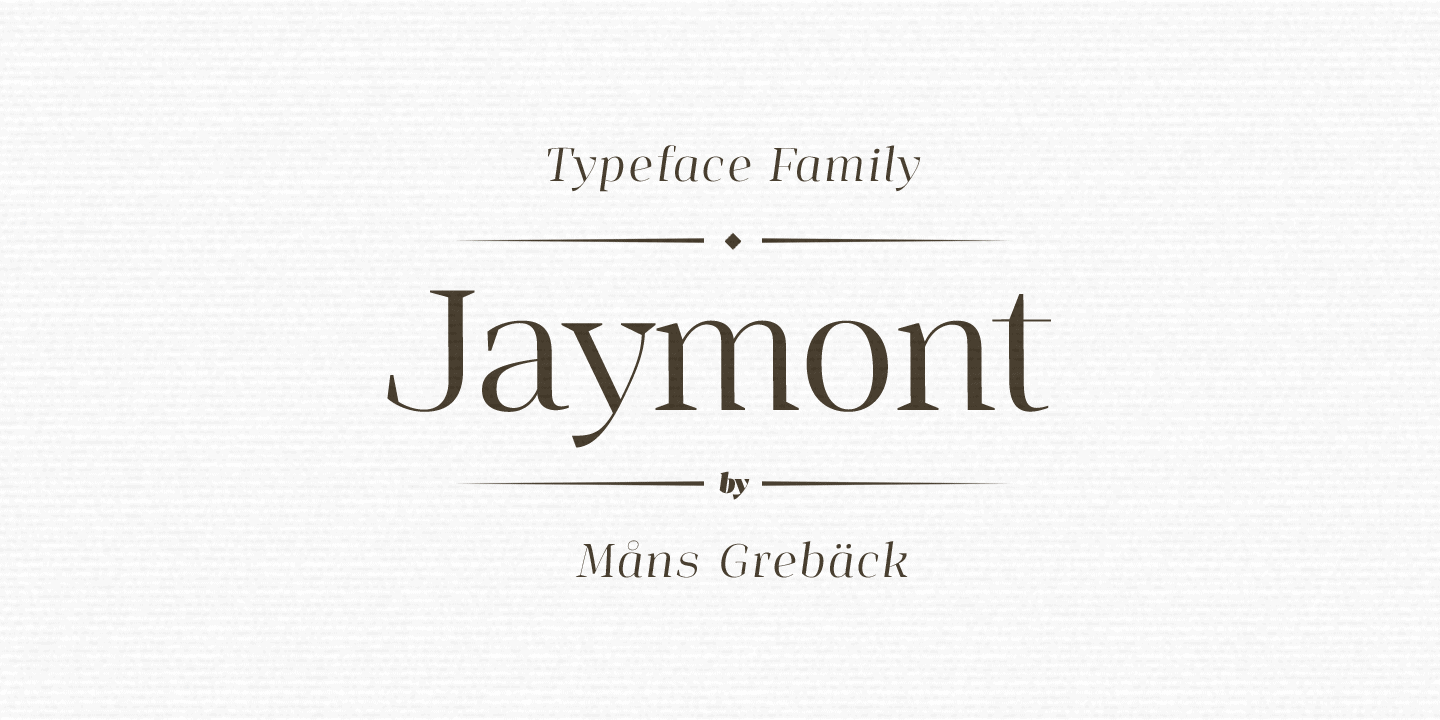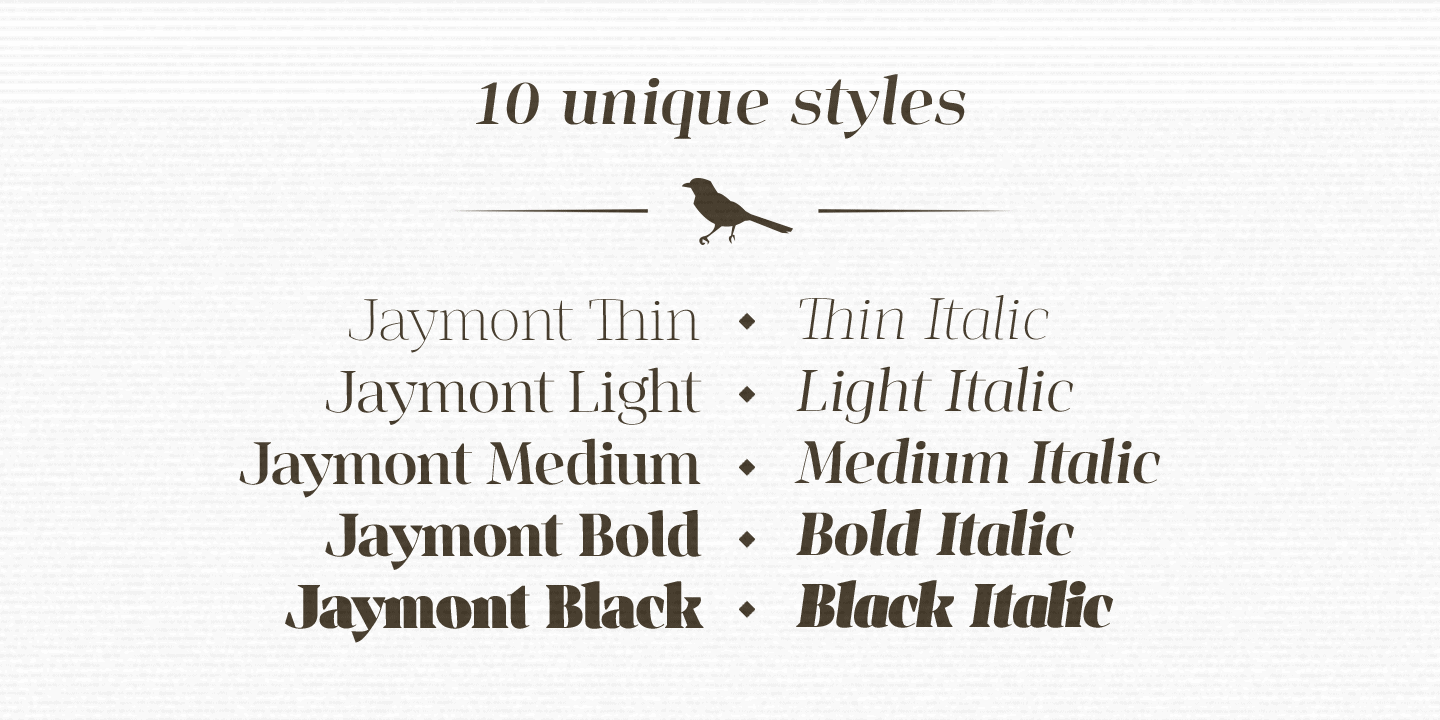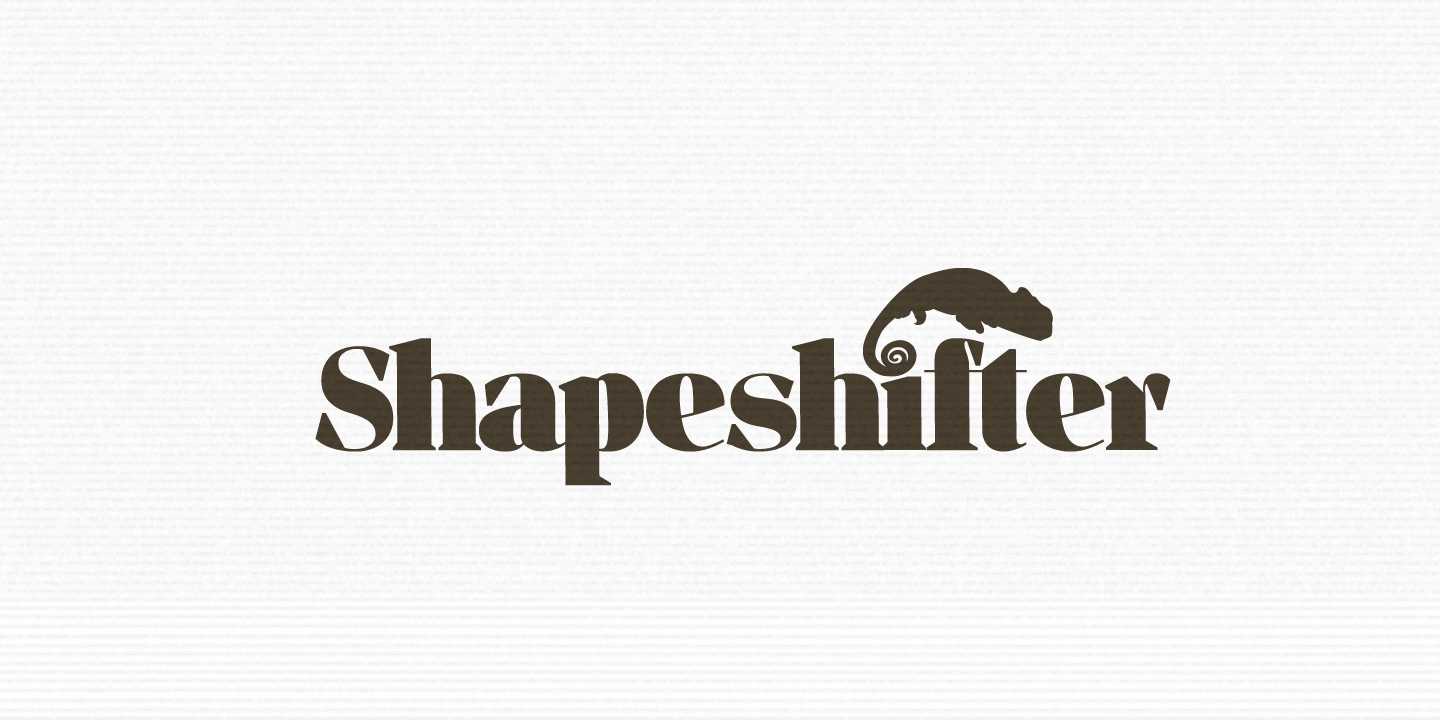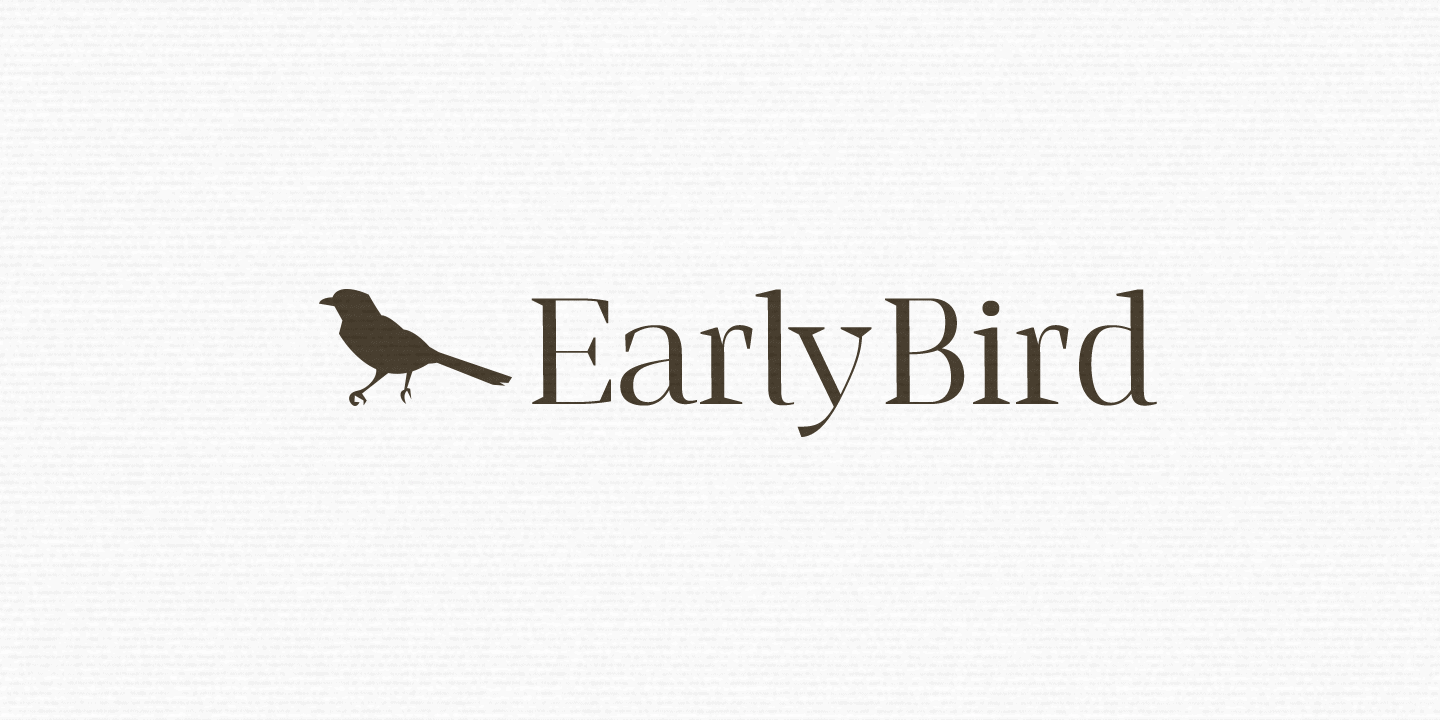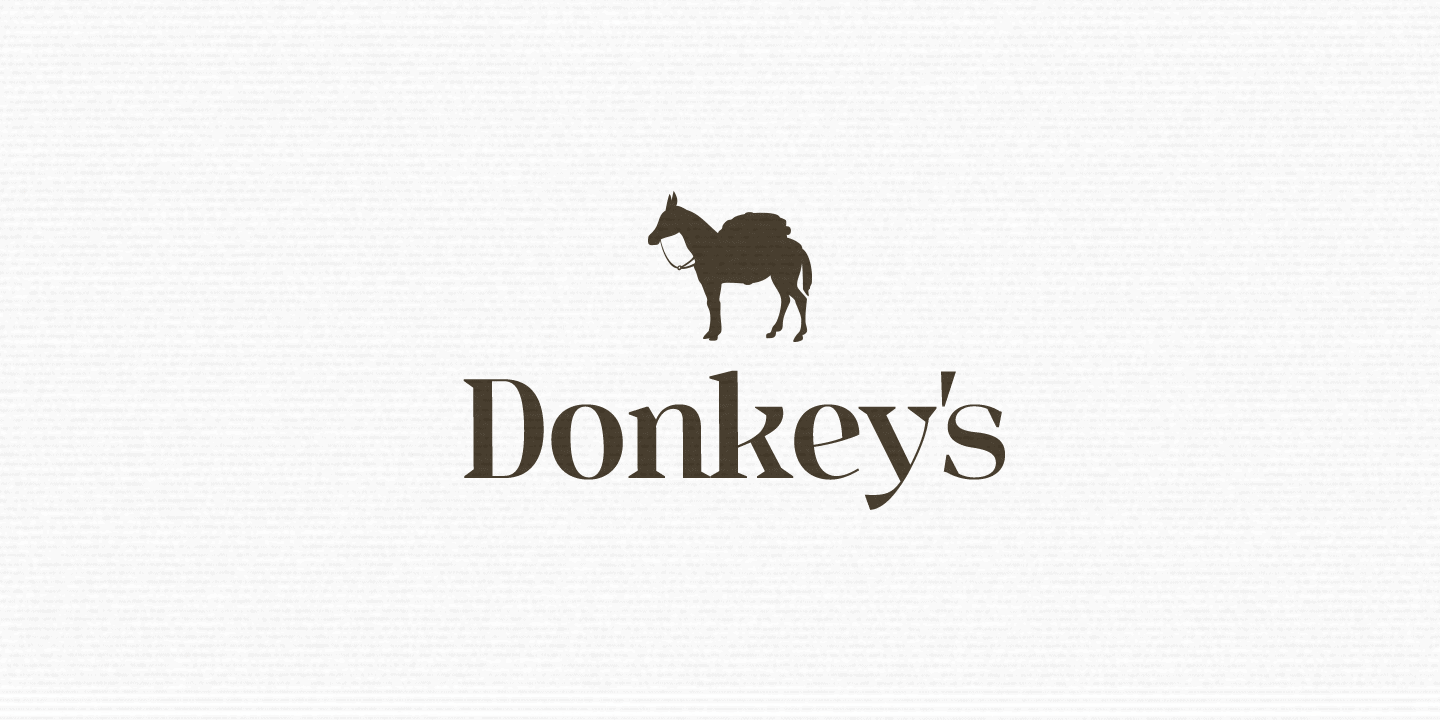
Jaymont
Jaymont is a sharp typeface family. It is brave and experimental, yet confident.
The family consists of ten high-quality fonts, five different weights and each weight as italic. The weights are Jaymont Thin, Jaymont Light, Jaymont Medium, Jaymont Bold and Jaymont Black, each with an equally strong character.
The fonts support all European Latin-based languages, and contain ligatures and a wide range of useful symbols.